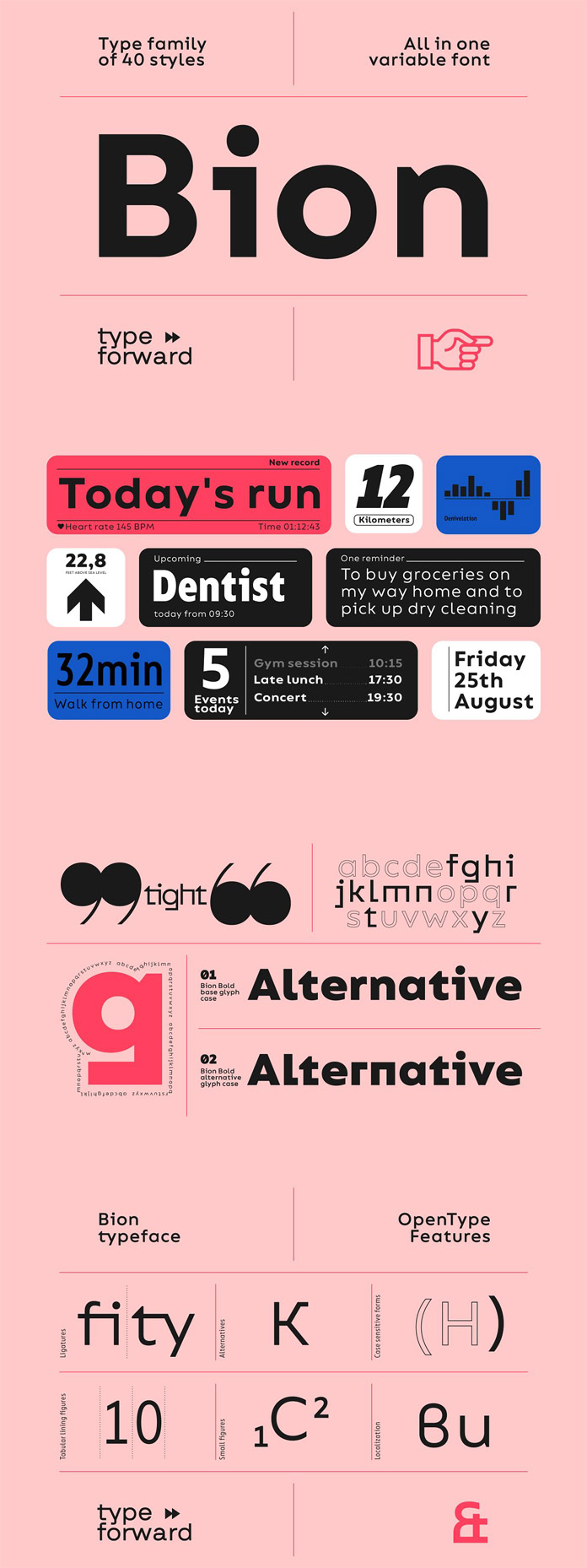
Say hello to Bion, a highly legible contemporary sans serif font family that provides you with a geometric, down-to-earth attitude.
The Bion font family, designed by Type Forward, is characterized by a high x-height, sharp terminals cut vertically, and minimal stroke contrast for a look that is distinctive yet timelessly appealing. The complete OroZ typographic library contains 40 weights in only one variable file! You have your choice of Upright, Italic, or Condensed variations to use for creative poster and title designs.
Bion Font Family by Type Forward
Bion provides support for any message you want to get across, in 220 languages and 1,220 glyphs in total. With support for Extended Latin, Cyrillic, and Greek scripts as well as an exhaustive list of typographic symbols—Bion has got you covered.
The Bion font family is also full of OpenType features with an alternative glyph set that will change the way your text looks by making it appear more square, offering additional visualization options.
You can be sure, the Bion font family is perfect for any and all of your advanced typographic needs. With static and variable fonts, an extensive set of standard and discretionary ligatures, tabular and small figures, and fractions, this functional yet pragmatic typeface is easily readable both in print and on screen.